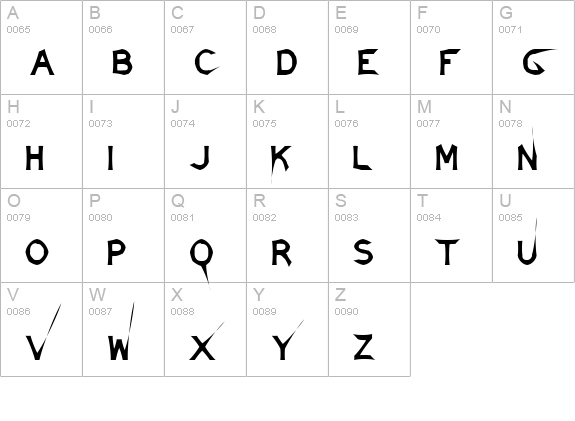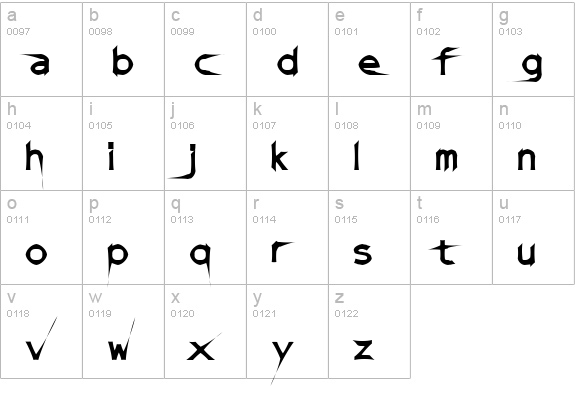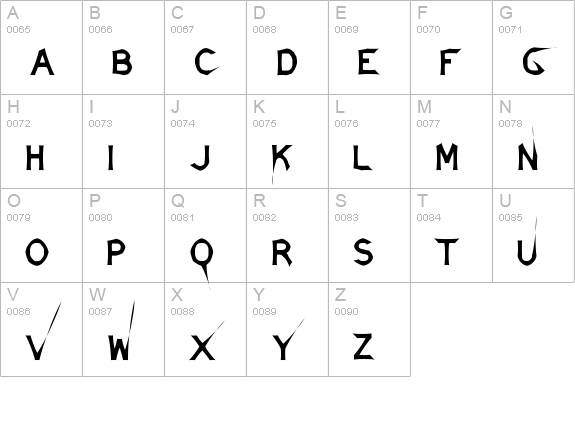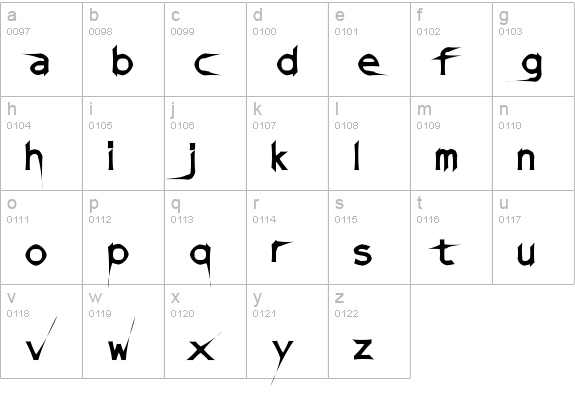
DamagedSataLight Font Details
DamagedSataLight font is a captivating and unique typeface that exudes a sense of edgy creativity. Designed to capture the essence of a worn-out and weathered appearance, this font brings a touch of vintage charm to any design project. With its distressed and damaged aesthetic, DamagedSataLight font adds character and depth to your text, making it perfect for graphic design, branding, and advertising purposes. This font features irregular letterforms that appear as if they have been scratched or chipped, resulting in a visually engaging and eye-catching effect. Each letter has its own distinct personality, showcasing a sense of authenticity and rawness. The slight inconsistencies and imperfections in the font's design add an element of imperfection, making it truly one-of-a-kind. With its versatile nature, DamagedSataLight font can be used in a variety of creative projects. Whether you are designing a vintage-inspired poster, creating a logo with a gritty feel, or adding a touch of nostalgia to your website, this font will elevate your designs to new heights. One of the best aspects of DamagedSataLight font is that it is available for free download at FontsMarket.com. This means that you can easily access and utilize this captivating typeface without any cost. It is an excellent opportunity to enhance your design projects with a font that is both visually appealing and freely available. Don't miss out on the chance to incorporate DamagedSataLight font into your designs. Download it today from FontsMarket.com and unleash your creativity with this stunning and distinctive typeface.